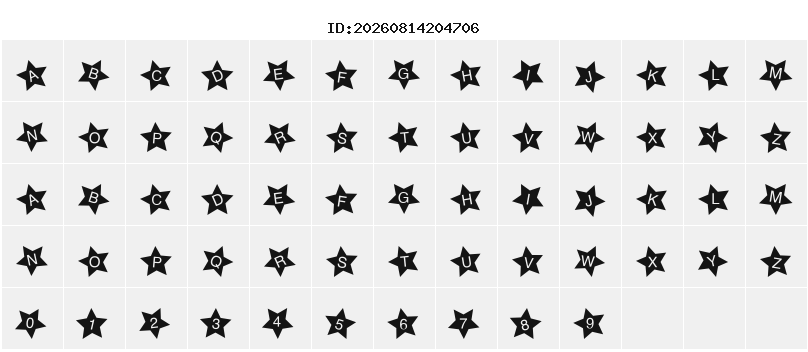
Starvetica Preview
• Font Name: Starvetica
• Full Font Name: Starvetica
About Starvetica.ttf
Starvetica.ttf is a modern, elegant sans-serif font designed for ultimate readability and visual harmony. Perfect for branding, headlines, web design, and print materials.